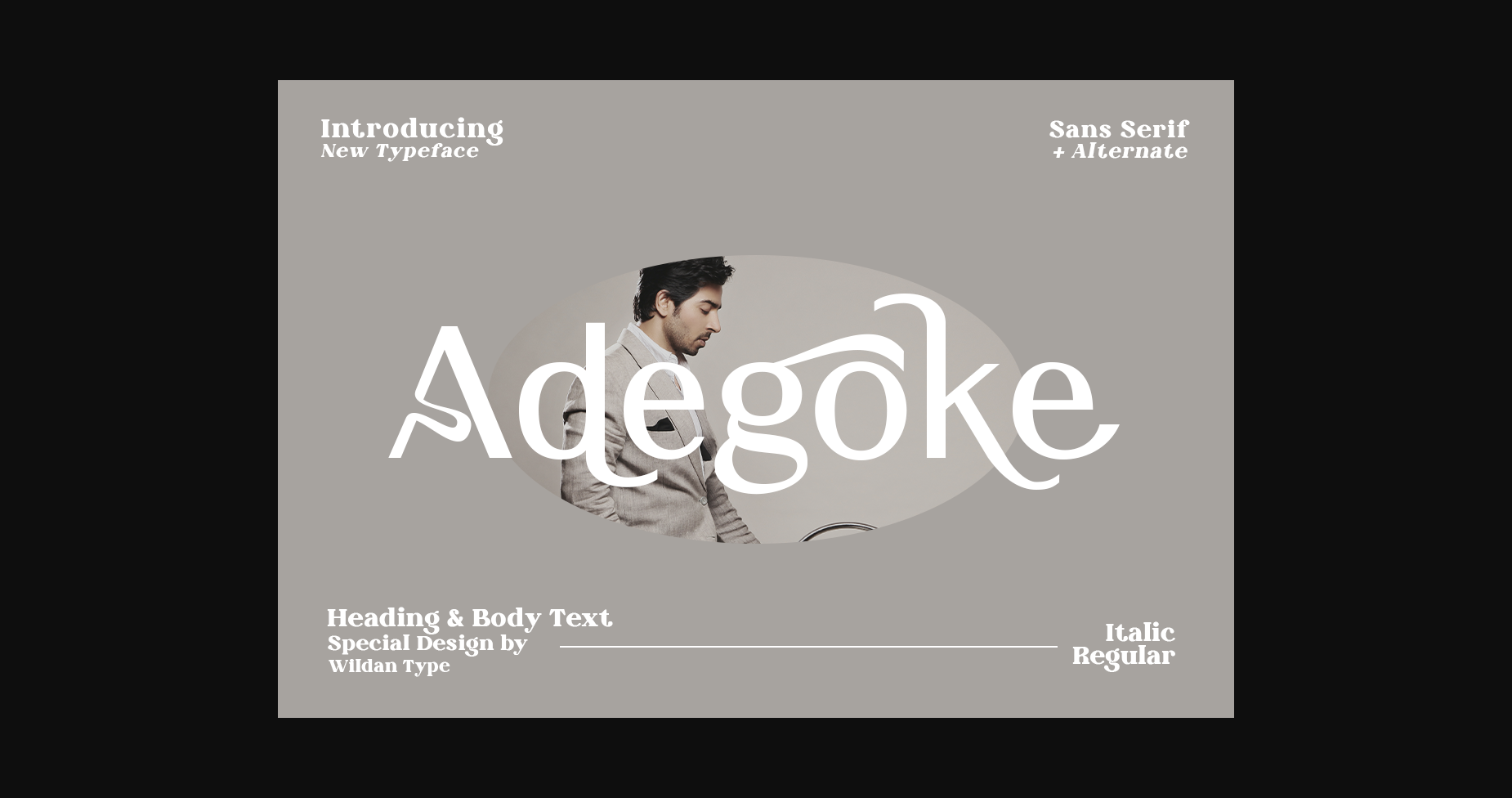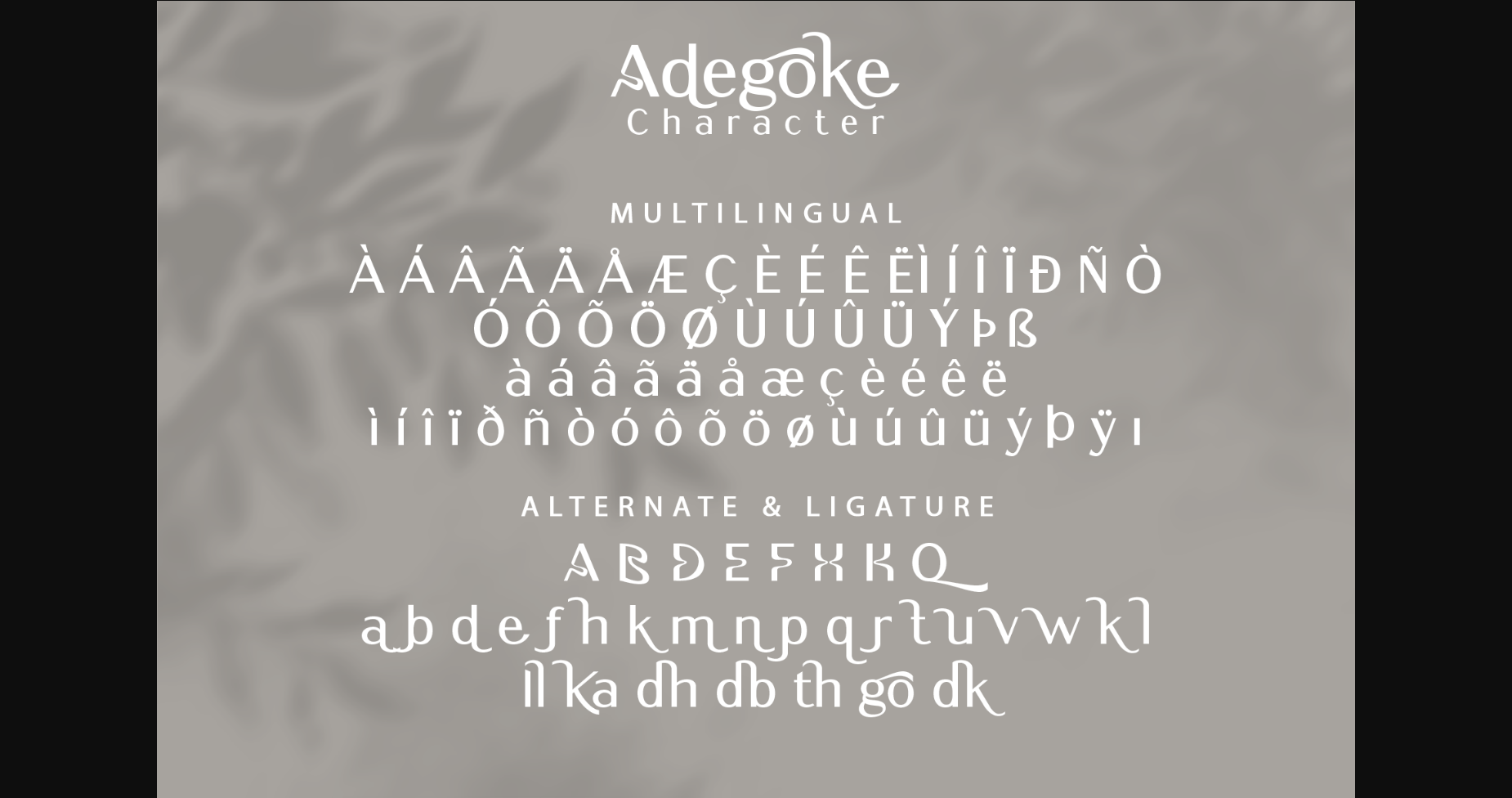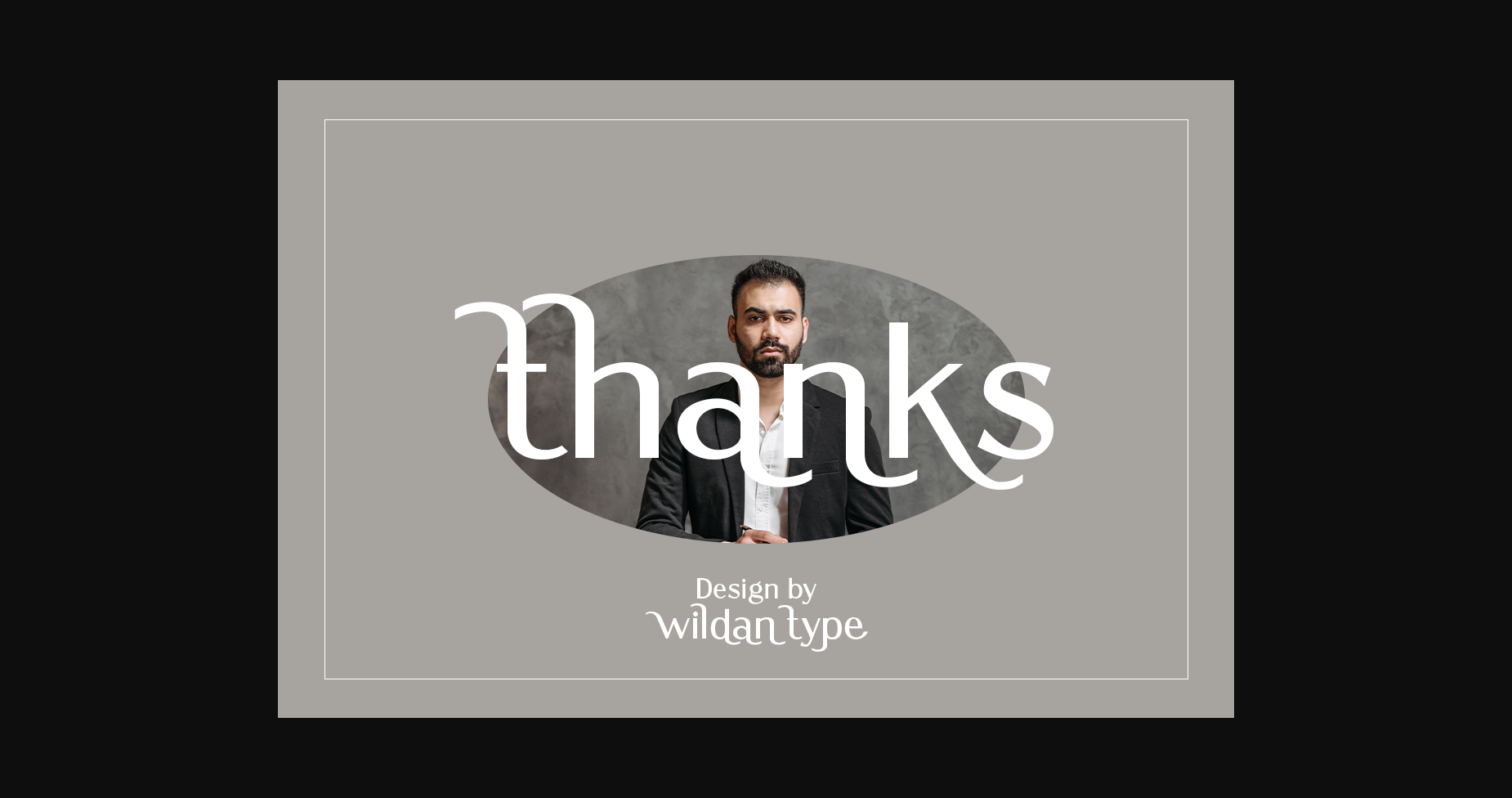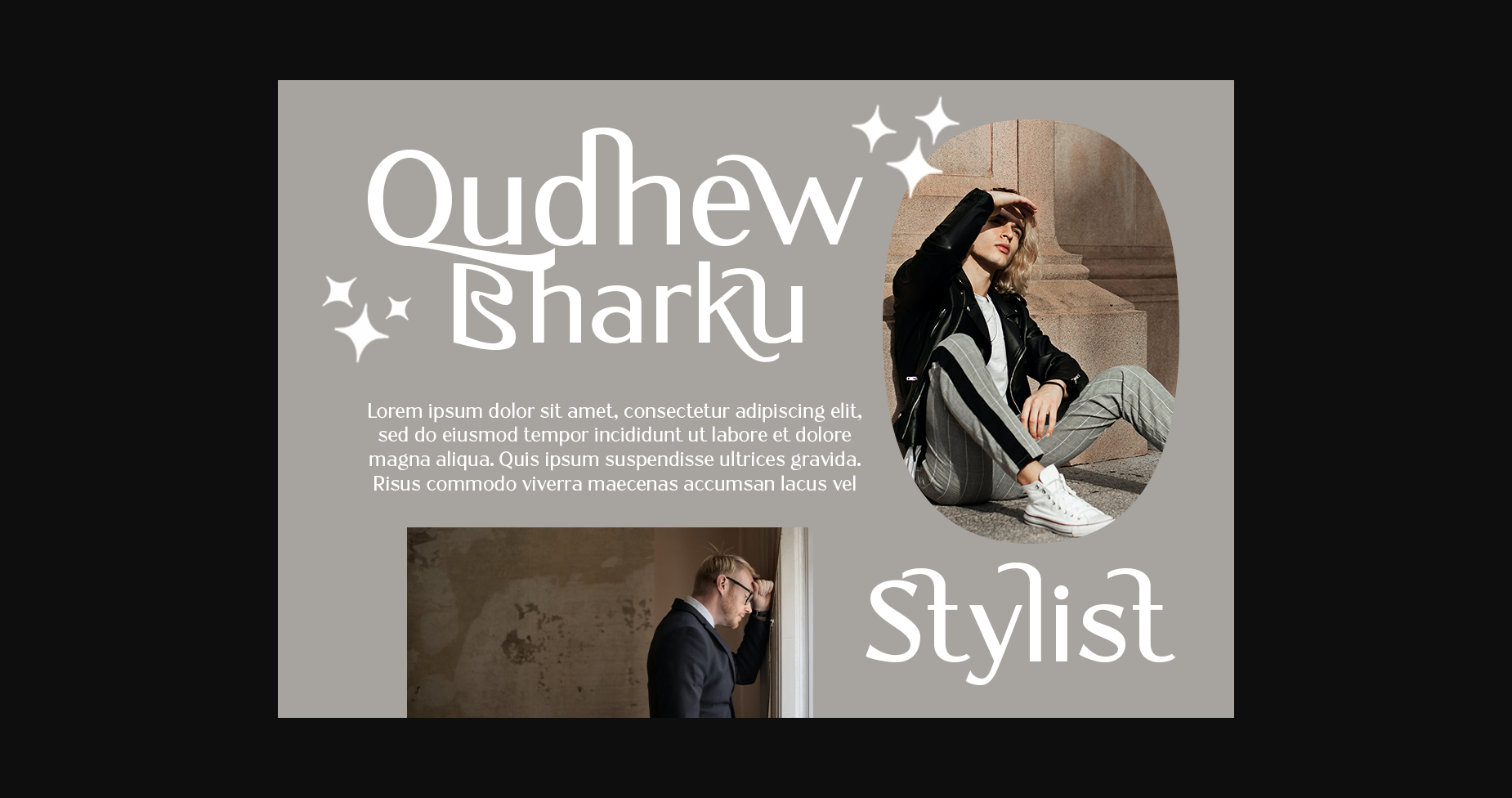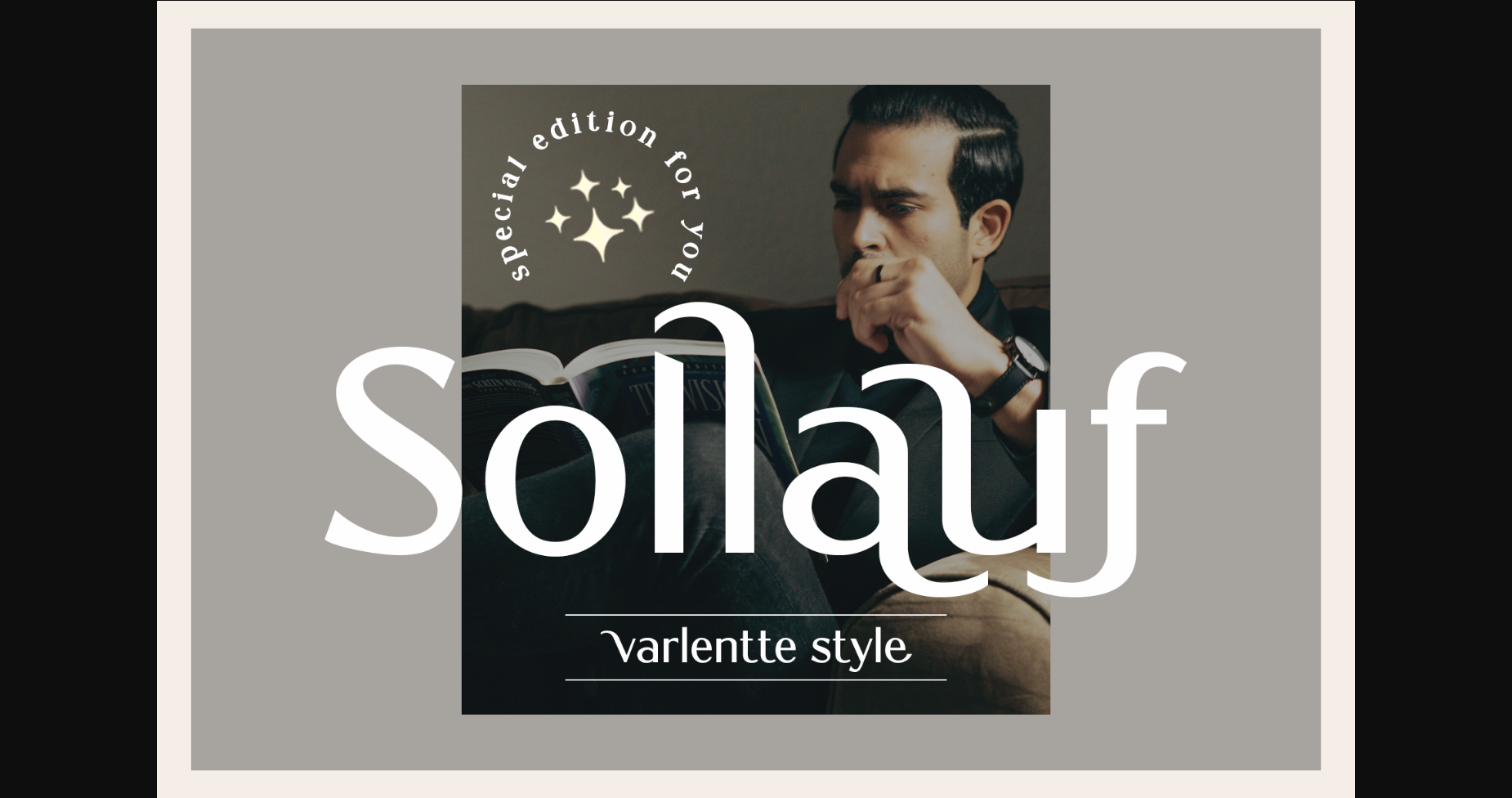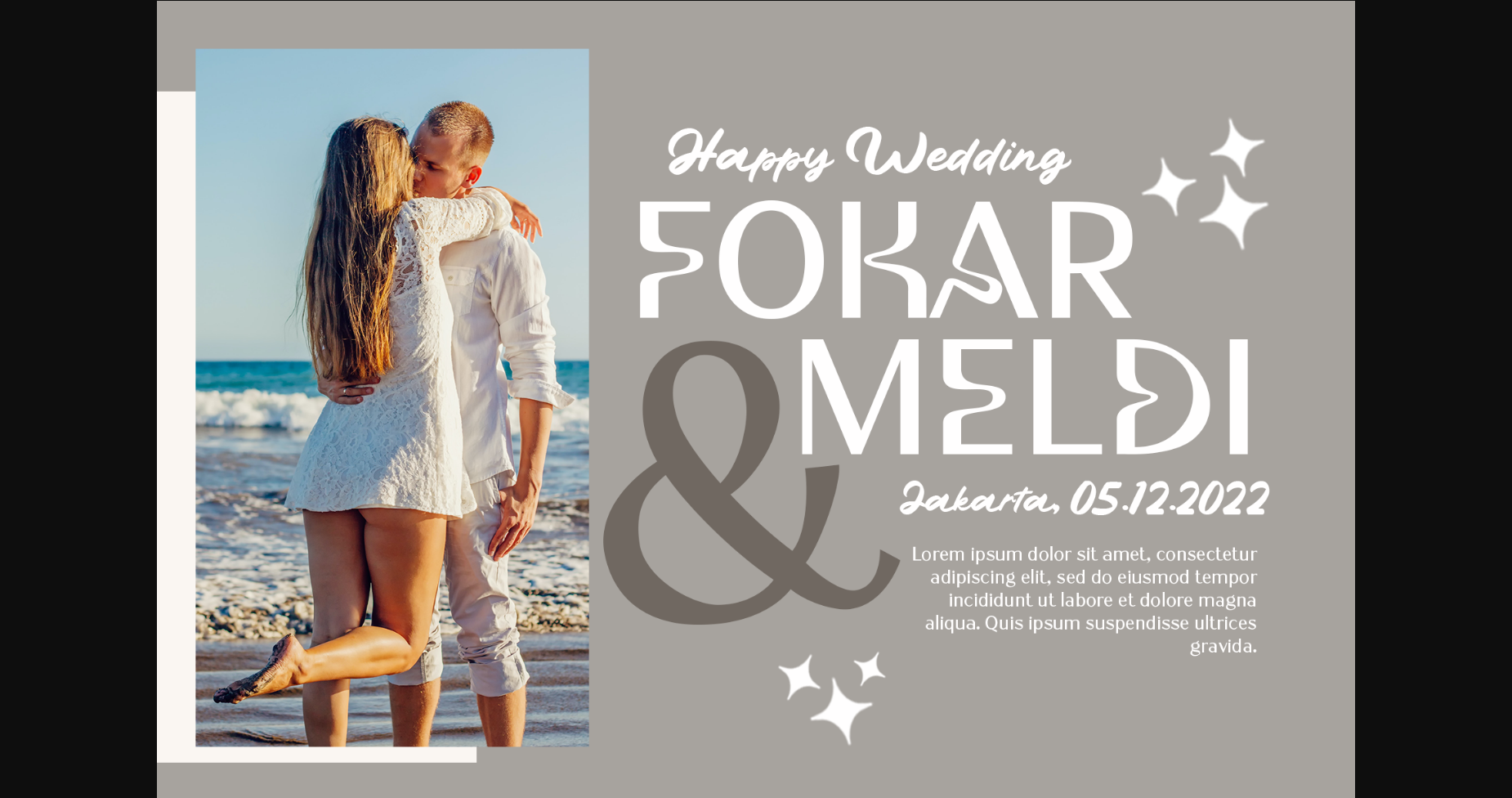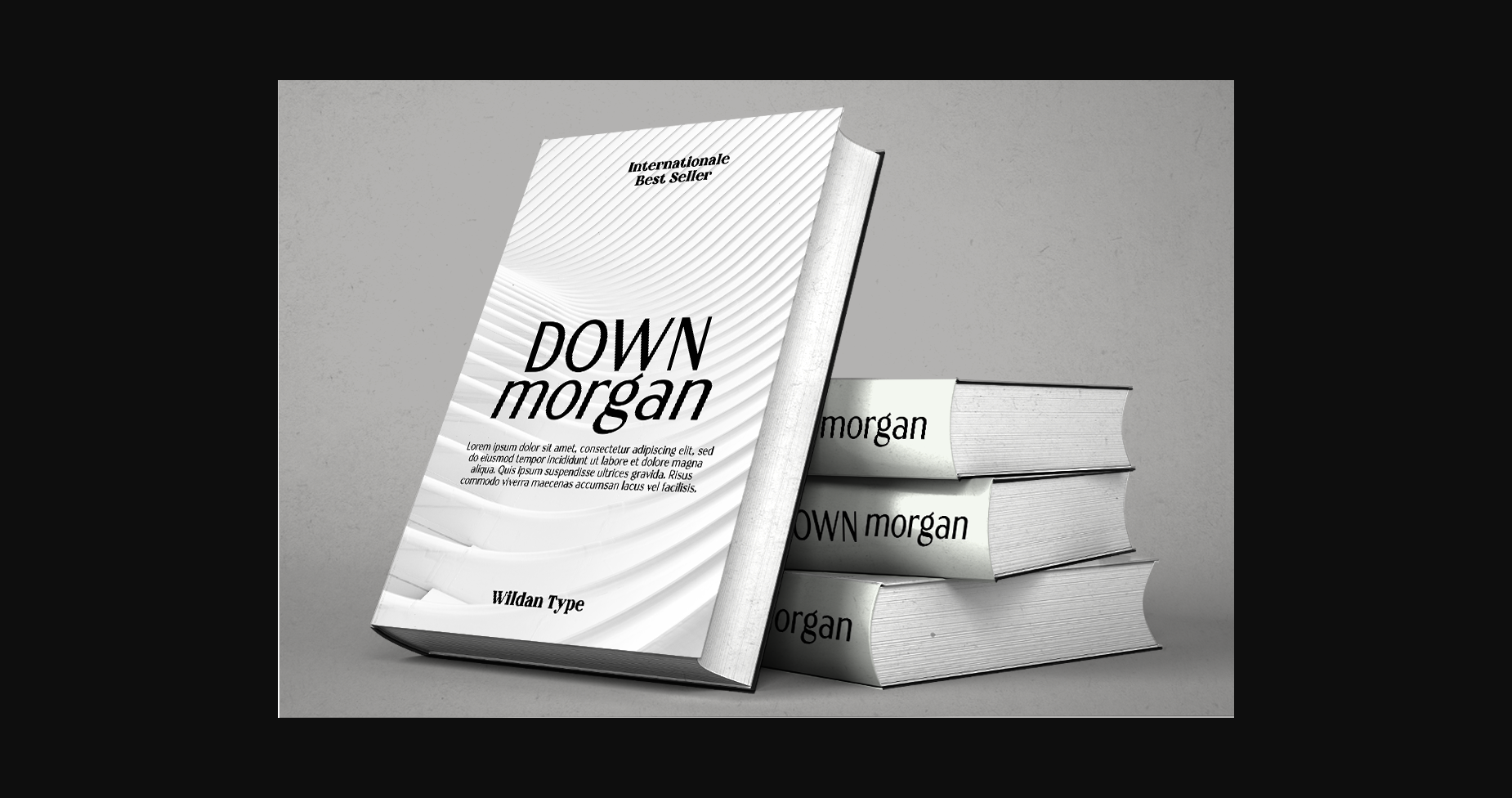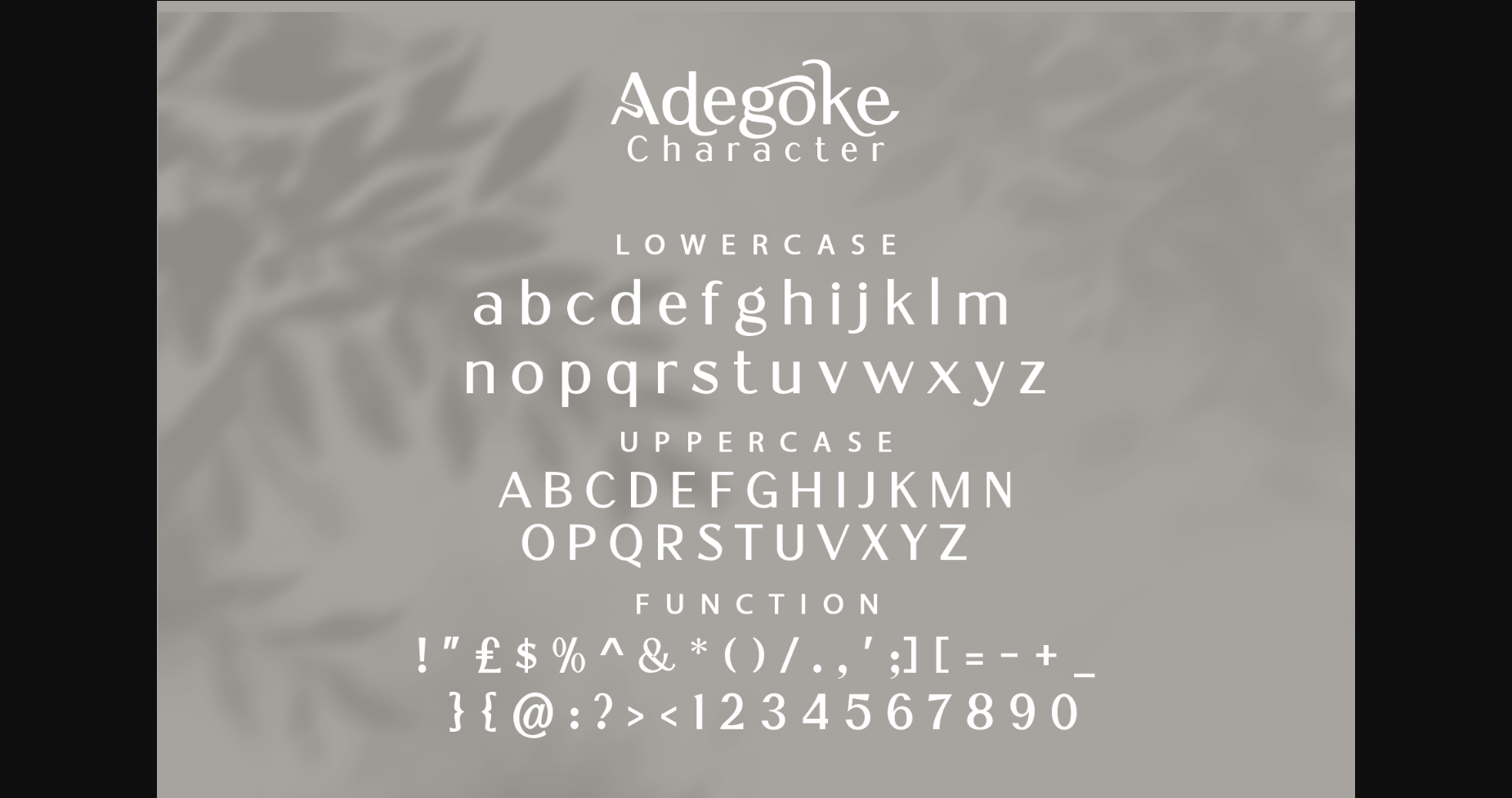
Adegoke is a stylish and elegant sans serif font. No matter the topic, this font will be an incredible asset to your fonts’ library, as it has the potential to elevate any creation.